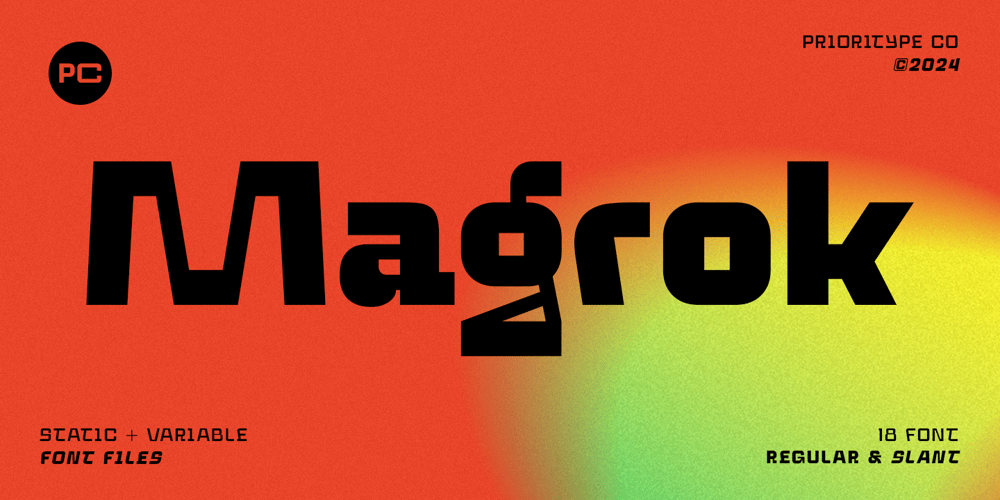
PC Magrok Font Family was designed by Prio Nurokhim Aji and published by Prioritype. PC Magrok contains 19 styles and family package options. PC Magrok – Font Family (Variable)PC Magrok is a freestyle contemporary display font. 18 fonts available (Regular & Slant). Variable + Static font files are also available so you can play with them however you like. Suitable for logo, branding and poster design.Features: Uppercase, Lowercase, Numeral, Punctuation, Multilingual & Alternates.Multilingual contained: Afrikaans, Albanian, Asu, Basque, Bemba, Bena, Breton, Catalan, Chiga, Cornish, Danish, Dutch, English, Estonian, Filipino, Finnish, French, Friulian, Galician, German, Gusii, Indonesian, Irish, Italian, Kabuverdianu, Kalenjin, Kinyarwanda, Luo, Luxembourgish, Luyia, Machame, Makhuwa-Meetto, Makonde, Malagasy, Manx, Morisyen, North Ndebele, Norwegian Bokmål, Norwegian Nynorsk, Nyankole, Oromo, Portuguese, Quechua, Romansh, Rombo, Rundi, Rwa, Samburu, Sango, Sangu, Scottish Gaelic, Sena, Shambala, Shona, Soga, Somali, Spanish, Swahili, Swedish, Swiss German, Taita, Teso, Uzbek (Latin), Volapük, Vunjo, Zulu.Thanks!